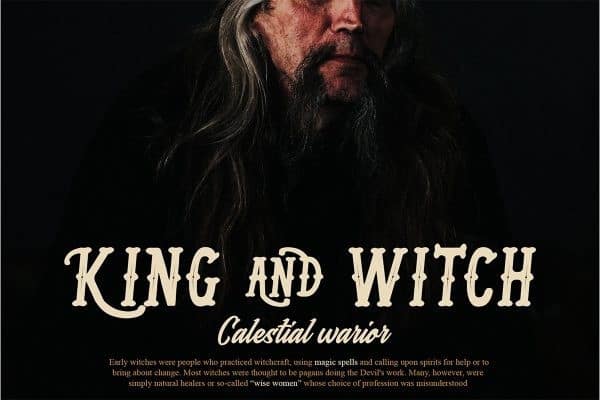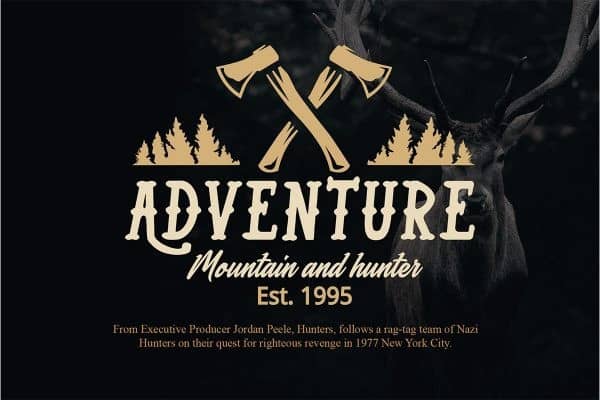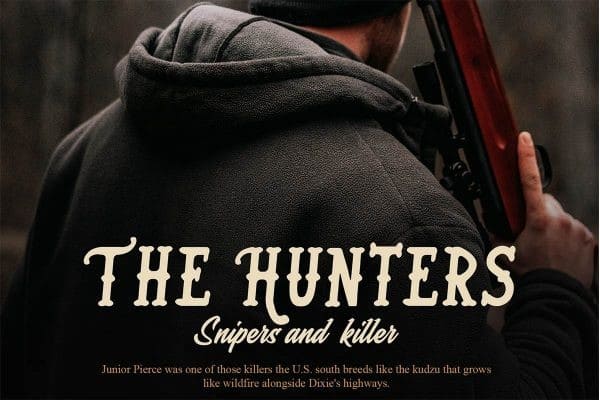
Introducing Kind Of Rock Display Font, a handcrafted all-caps display font inspired by traditional craftsmanship of the trades.
Kind Of Rock is a great addition to any project as it featuers two styles; clean and decorate to convey a variety of looks through the numerous characters that Kind Of Rock has to offer! Using opentype features, the font also includes extras.